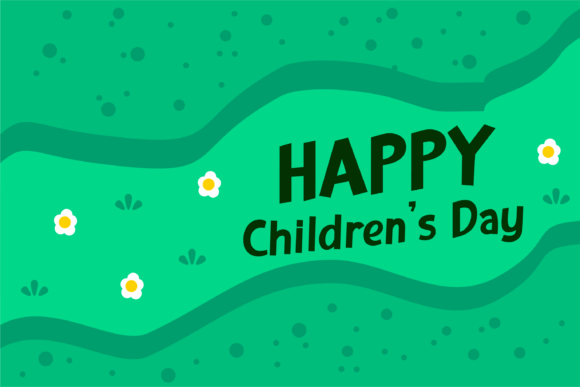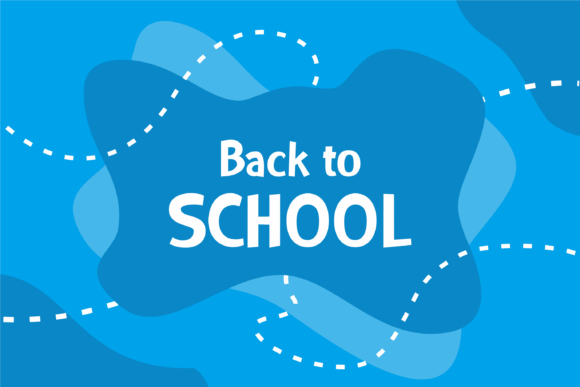
Introduction to Kapow Font
Have you ever been brainstorming a creative project and suddenly, the perfect font pops into your mind? That’s exactly what happened to us when we stumbled upon the adorable Kapow Font. Its quirky display style instantly caught our attention, and we knew it was going to add a joyful touch to our designs.
As designers, we’re always on the lookout for unique and high-quality design resources to elevate our projects. And that’s exactly what Kapow Font offers – a free download that’s perfect for adding a playful twist to your social media posts, stationery art, or any other creative project that needs a little extra oomph.
With its transparent background and charming characters, Kapow Font is an invaluable addition to any designer’s toolkit. Whether you’re working on a personal project or a client’s design, this font is sure to bring a smile to your face and a touch of whimsy to your designs.
Key Features of Kapow Font
- High-quality design resource ideal for creative projects, offering a unique and playful touch.
- Features a transparent background, allowing for seamless integration into designs without any visual clutter.
- Supports a wide range of languages, making it a versatile design resource for global creative projects.
- Includes a variety of characters, including uppercase and lowercase letters, numbers, and special symbols, to cater to diverse design needs.
- Designed with a high-resolution (300 DPI) to ensure crisp and clear typography, suitable for both digital and print applications.
- Perfect for adding a dynamic and energetic feel to designs, logos, and branding materials, making it an excellent choice for creative projects.
Honest Review: Kapow Font
I recently stumbled upon the Kapow Font while searching for design resources to enhance my creative project. I must say, it’s been a game-changer.
Here are some aspects that work well for me: ✨
- High quality typography – The font is clean, crisp, and well-designed, making it perfect for various design projects.
- Transparent background – This feature allows me to easily use the font on various backgrounds, giving me more design flexibility.
However, I did encounter a few limitations: ⚠️
- Limited font styles – While the font itself is great, it would be awesome to have more font styles and weights to choose from.
- Not suitable for complex text – Due to its simplicity, it’s not ideal for complex text or large blocks of text.
Overall, I’m thoroughly impressed with the Kapow Font. It’s a valuable design resource that I’ll definitely be using for future creative projects.
The Kapow Font is a high-quality design resource ideal for creative projects. It’s available for free download and offers a transparent background, making it perfect for various design applications.
Tips for Getting the Most Out of Kapow Font
For optimal results, use the Kapow Font in combination with other design elements, such as images and shapes, to create visually appealing designs. Experiment with different font sizes and colors to add emphasis and create a cohesive look.
The Kapow Font is suitable for a wide range of creative projects, including logos, graphics, social media posts, presentations, and documents. Its high-quality design and transparent background make it an ideal choice for designers and non-designers alike.
Yes, the Kapow Font is designed to work well with transparent backgrounds. The font’s design allows for seamless integration with images or other design elements that have a transparent background. This makes it perfect for creating visually appealing designs for various creative projects.